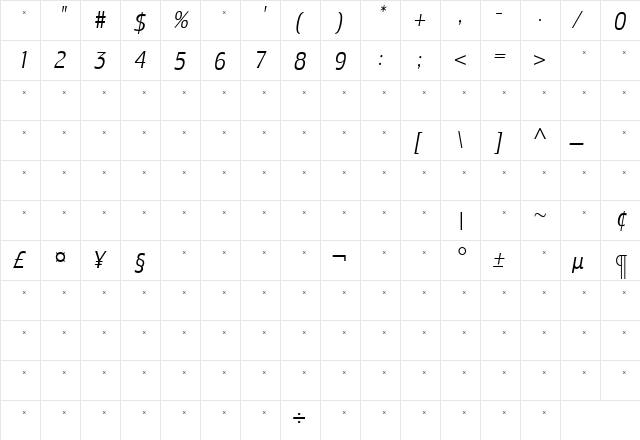
LesmoreLightCondensedItalicTab Roman Font Preview
Design Context for LesmoreLightCondensedItalicTab Typeface
LesmoreLightCondensedItalicTab offers clean, dependable letterforms without strong stylistic allegiance, making it a practical choice for designers who need flexibility. The slanted form adds forward momentum and visual energy. Its slender proportions lend an understated elegance to any composition. The condensed width makes it efficient for tight spaces without sacrificing legibility.
Pro Tip: Use LesmoreLightCondensedItalicTab for emphasis, pull quotes, and subheadings where its slanted energy can add rhythm to the layout.